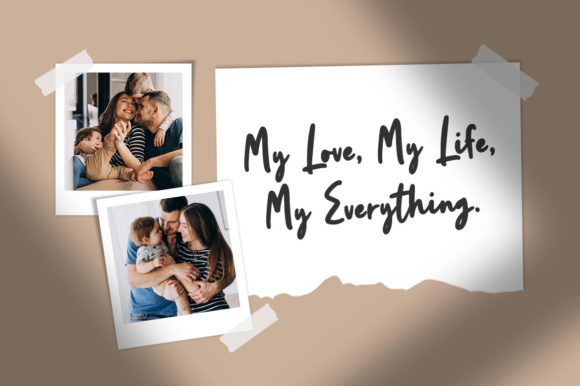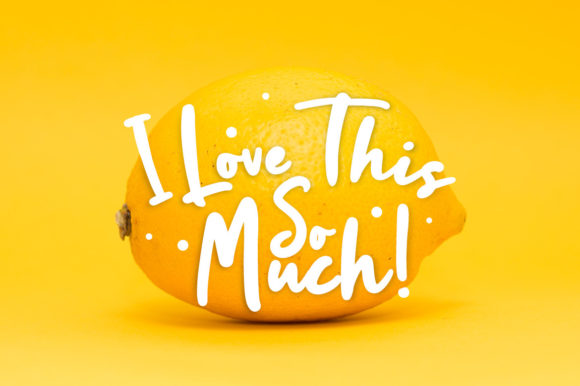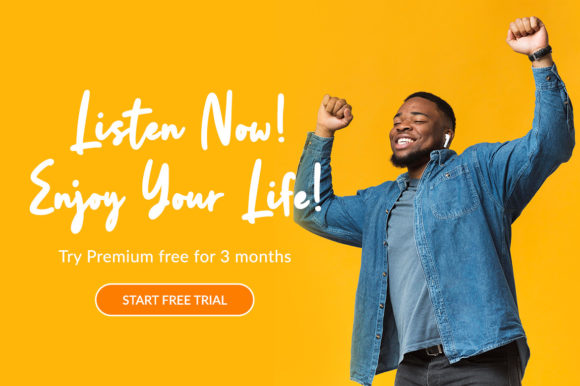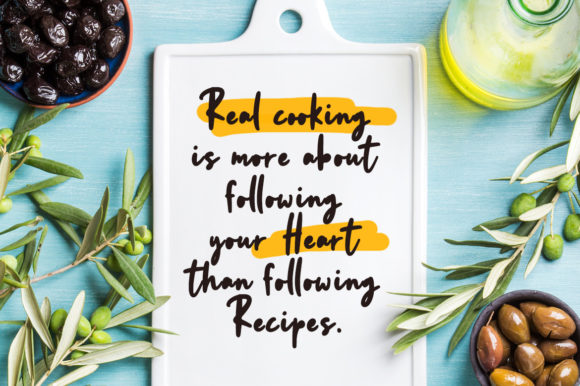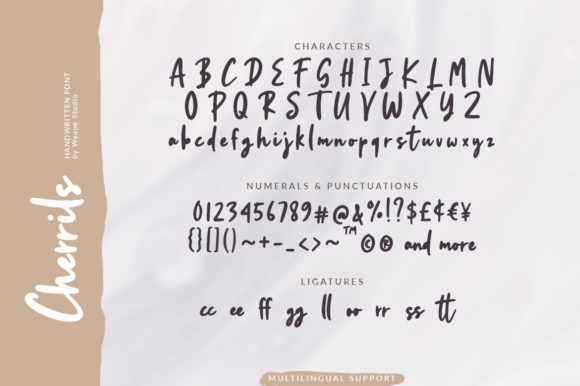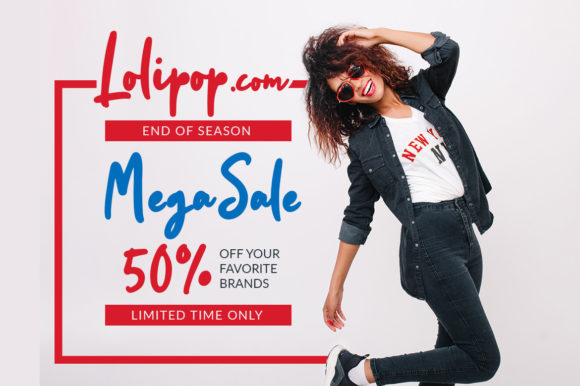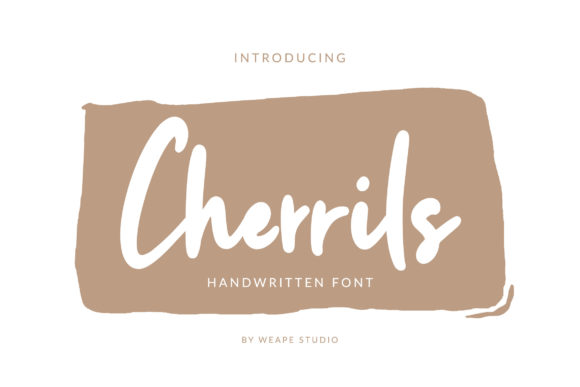
Introducing Cherrils Font: The Perfect Blend of Boldness and Friendliness
In the world of typography, fonts play a crucial role in conveying the tone and personality of a design. For designers and crafters looking for a font that exudes boldness and friendliness, Cherrils Font is an excellent choice. This handwritten font is simple, easy to use, and incredibly versatile, making it perfect for a wide range of craft designs.
What is Cherrils Font?
Cherrils Font is a bold and friendly handwritten font that has been carefully crafted to add a personal touch to your designs. Its unique blend of boldness and friendliness makes it an ideal choice for designers who want to create eye-catching and engaging designs. Whether you’re working on a project for a client or creating something for personal use, Cherrils Font is sure to impress.
Key Features of Cherrils Font
So, what makes Cherrils Font so special? Here are some of its key features:
- Bold and Friendly: Cherrils Font is a perfect blend of boldness and friendliness, making it suitable for a wide range of designs.
- Handwritten: This font has a beautiful handwritten feel that adds a personal touch to your designs.
- Simple and Easy to Use: Cherrils Font is incredibly easy to use, making it perfect for designers of all skill levels.
- Versatile: This font can be used for a wide range of craft designs, from posters and flyers to social media graphics and more.
How to Use Cherrils Font
Using Cherrils Font is incredibly easy. Here are some tips to get you started:
- Pair it with Other Fonts: Cherrils Font looks great when paired with other fonts. Try combining it with a sans-serif font for a bold and modern look.
- Use it for Headings: Cherrils Font is perfect for headings and titles. Its boldness makes it stand out, while its friendliness adds a touch of approachability.
- Add it to Your Craft Designs: Cherrils Font is perfect for craft designs, such as handmade cards, scrapbooking, and more.
Benefits of Using Cherrils Font
So, why should you choose Cherrils Font for your designs? Here are some benefits:
- Unique and Eye-Catching: Cherrils Font is a unique and eye-catching font that will make your designs stand out.
- Time-Saving: With Cherrils Font, you can create professional-looking designs in no time.
- Versatile: This font can be used for a wide range of designs, making it a great addition to your font library.
Tips and Tricks for Getting the Most Out of Cherrils Font
Here are some tips and tricks to help you get the most out of Cherrils Font:
- Experiment with Different Sizes: Try using Cherrils Font in different sizes to create visual interest.
- Use it with Images: Cherrils Font looks great when paired with images. Try using it to add text to your photos or illustrations.
- Make it Your Own: Don’t be afraid to experiment with different colors and styles to make Cherrils Font your own.
| Font Name | Cherrils Font |
| Author | Weape Design |
In conclusion, Cherrils Font is a bold and friendly handwritten font that is perfect for designers and crafters looking to add a personal touch to their designs. Its simplicity, ease of use, and versatility make it an excellent choice for a wide range of craft designs. Whether you’re a seasoned designer or just starting out, Cherrils Font is sure to become a favorite in your font library.
Get Creative with Cherrils Font
So, what are you waiting for? Get creative with Cherrils Font today and see the difference it can make in your designs. With its unique blend of boldness and friendliness, Cherrils Font is sure to take your designs to the next level.